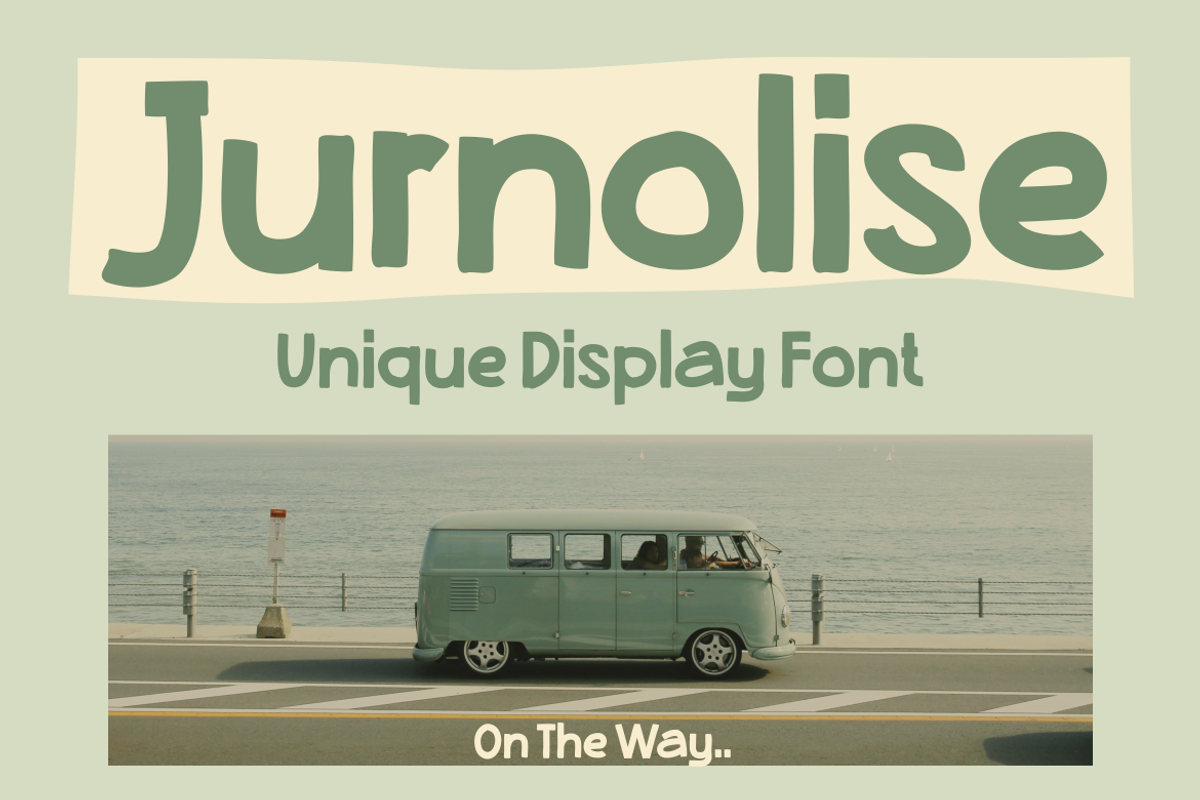
Jurnolise
Jurnolise is an authentic and unique display font that is perfect for professional and product branding needs. This font is suitable for any branding project such as quotes, logos, blog headers, posters, ribbons, letters, invitations, stationery, etc... It is designed to be versatile and flexible that can be used on a variety of projects and mediums. extraordinary in a variety of contexts.